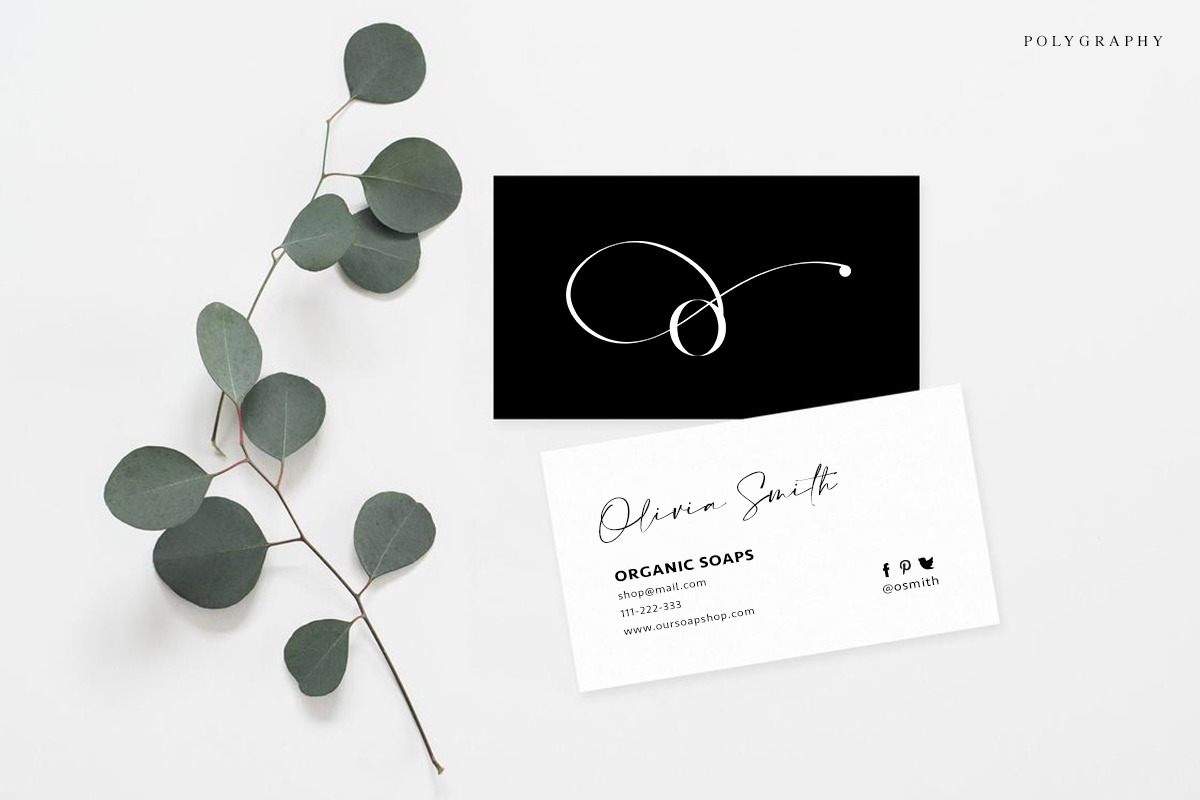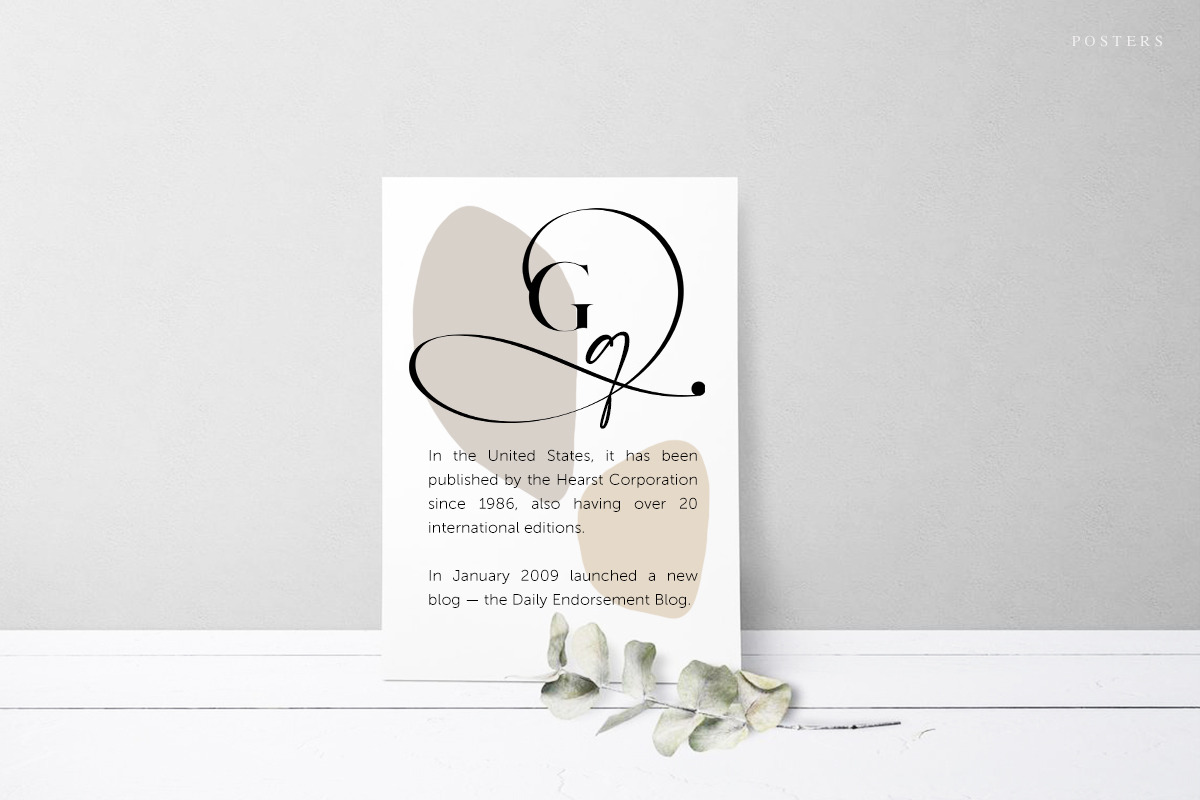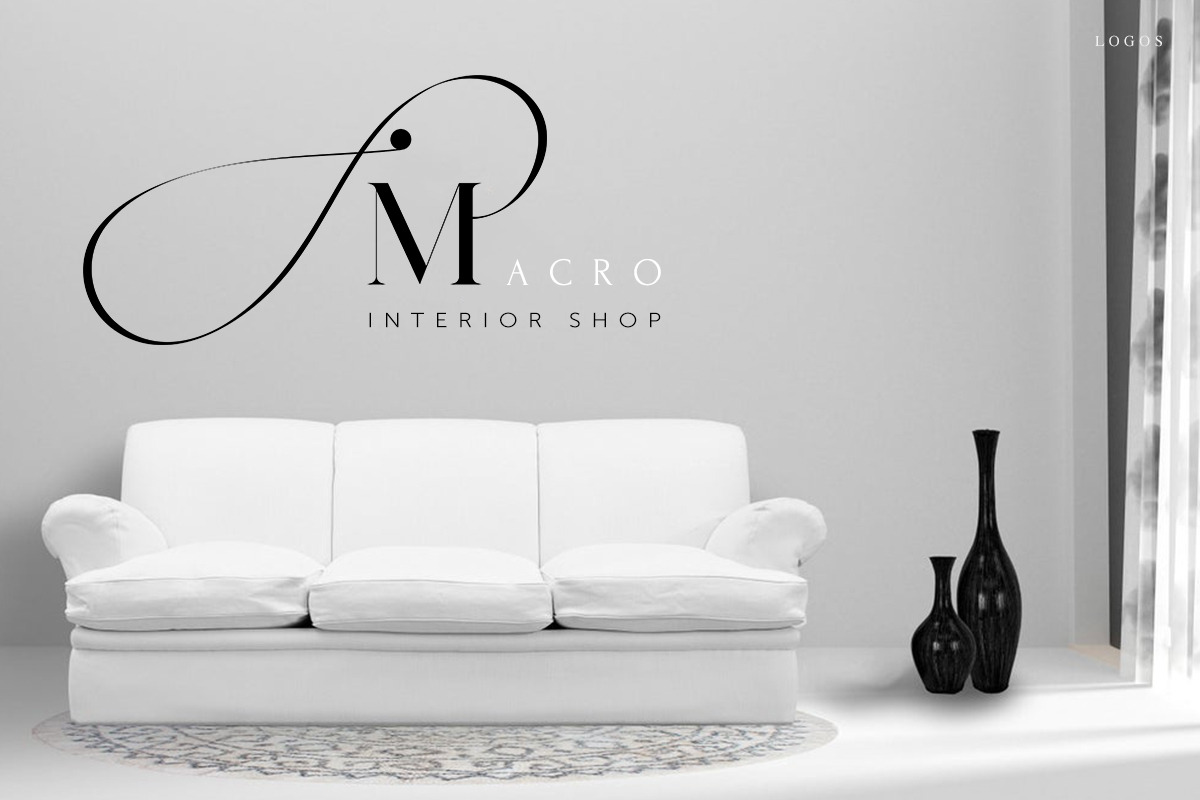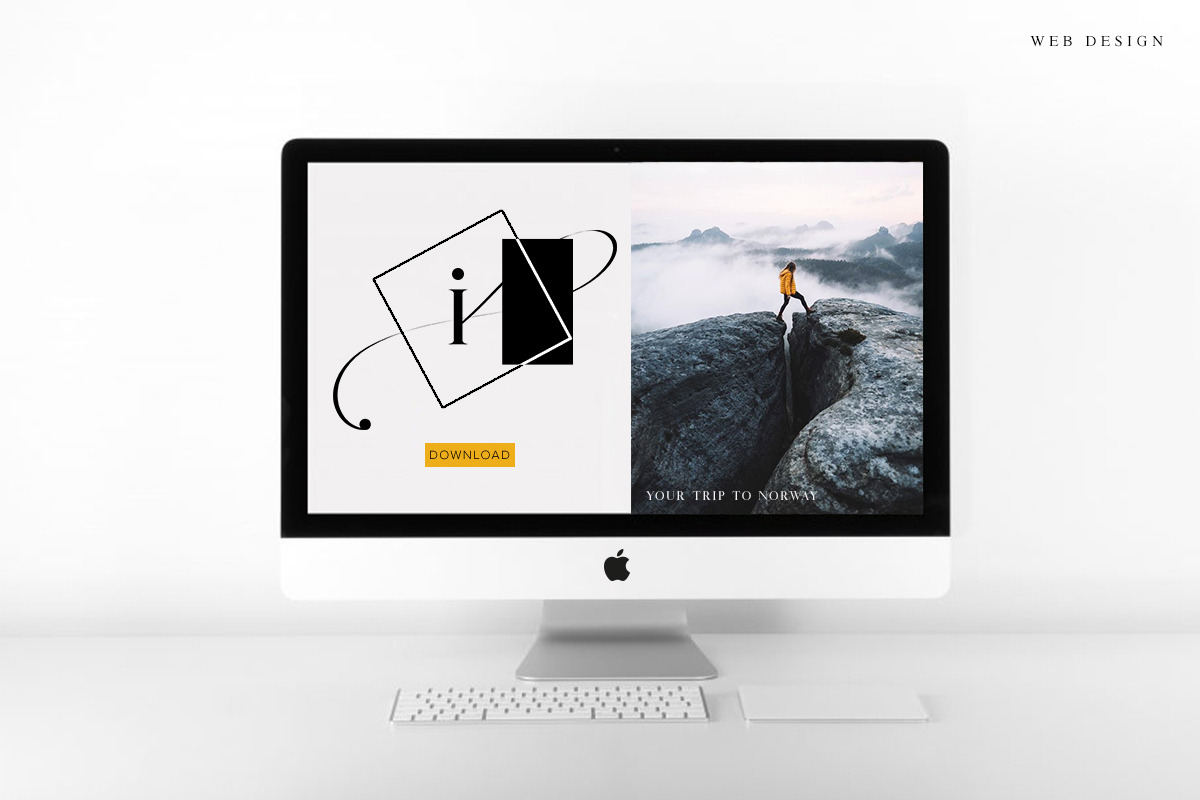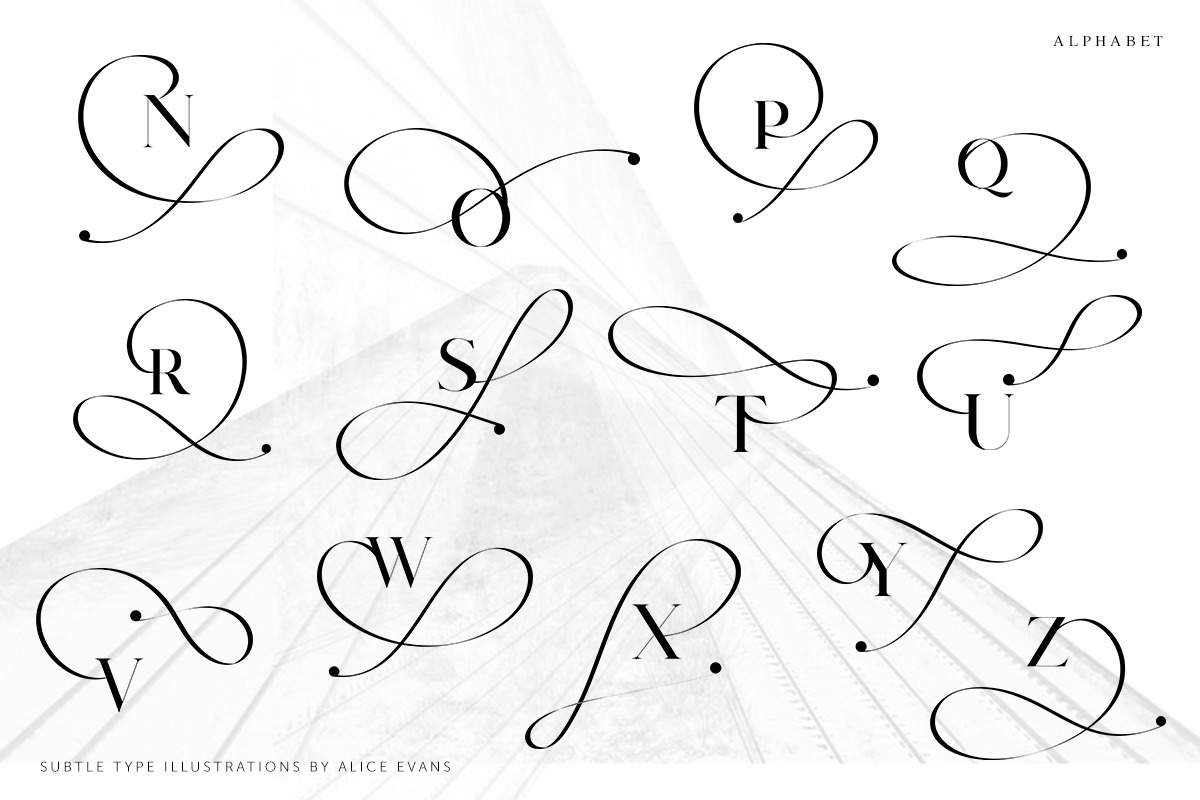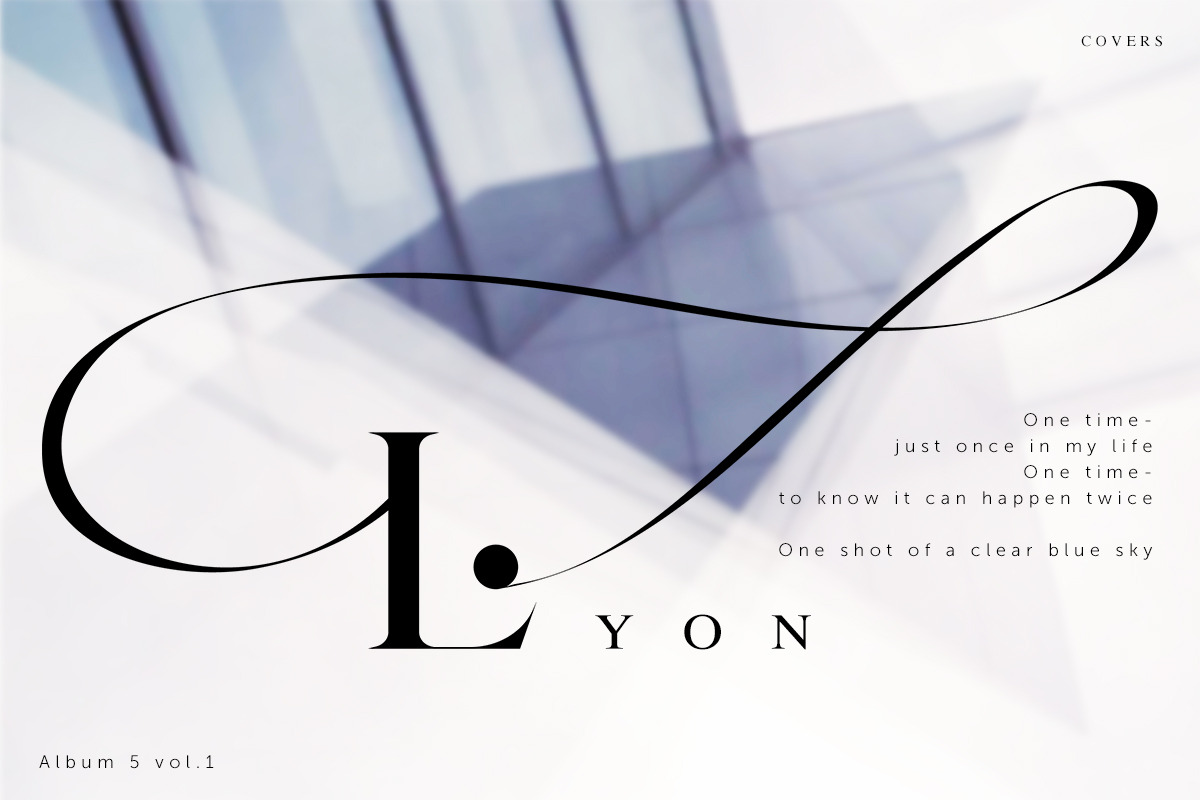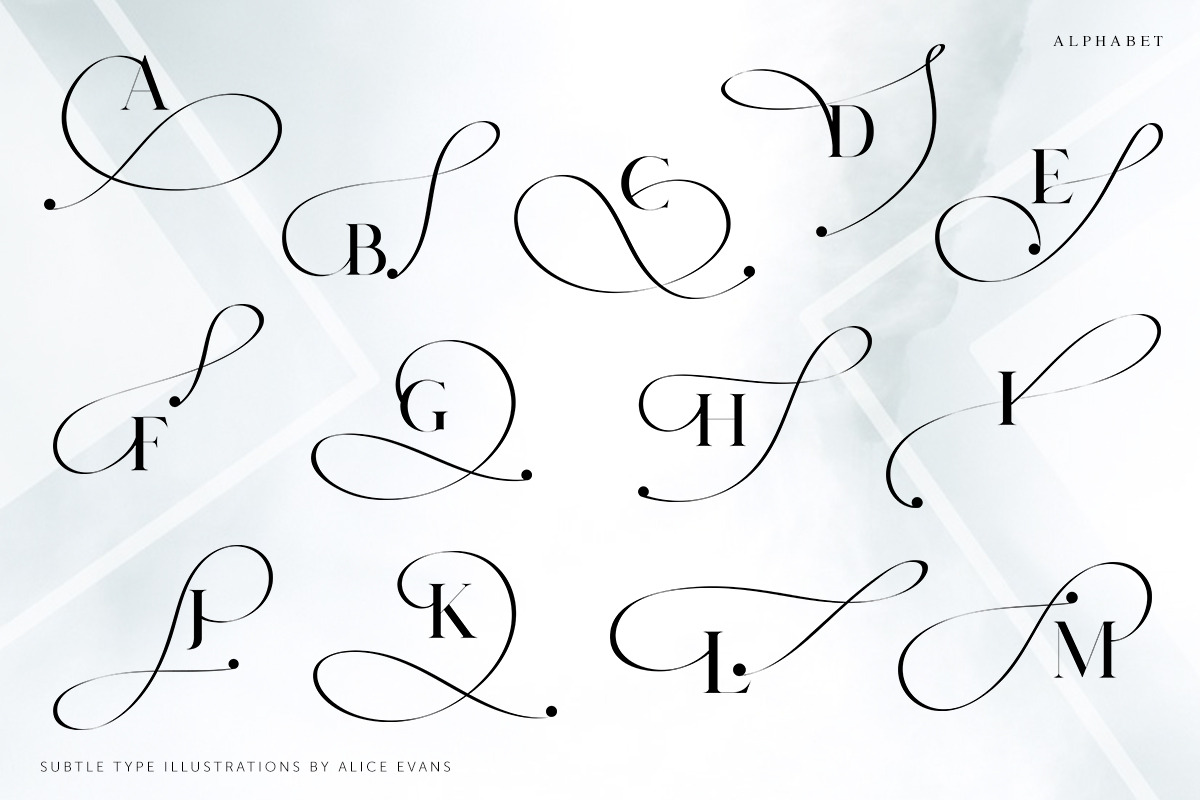
Subtle Uppercase letters
Subtle is a decorated Latin Uppercase characters based on rounded lines and a ball. Simple in using and just perfect if you need to add some scope and interesting details into your creatives.